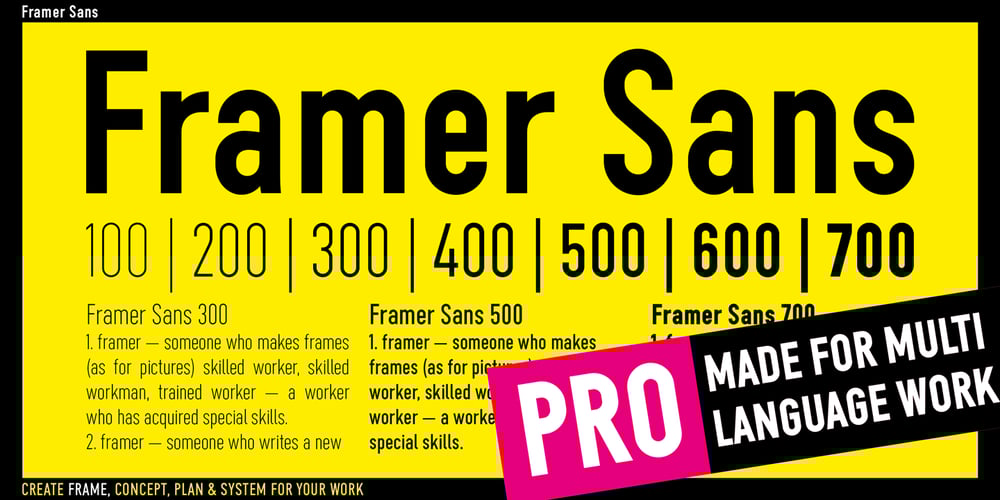
Framer Sans Font Family was designed by published by June 23. Framer Sans contains 7 styles and family package options. Framer Sans is sans-serif condensed type-family, created by June 23 Foundry. It is a geometric, lightly robust, simple and clean font, with a low contrast width. Framer Sans perfectly conforms to the ever-increasing demand for a diverse set of weights and additional support for non-Latin languages. The type system consists of 7 weights that for the clarity and users convenience is labelled with numbers from 100 to 700 (100 for “Thin”, 200 – “Ultra-Light”, and so on till 700 for “Bold”). It supports full Latin (European) character set, as well as Turkish, Vietnamese, Greek (basic) and Cyrillic languages. Framer Sans includes alternate characters, ligatures, symbols and 253 country codes that perfectly expand the design’s capabilities. Numerals contain six figure sets and Roman numbers. The variety of choices is expanded with additional stylistic sets for lowercases “a” and “g”, as well as 3 stylistic sets for Latin uppercases with crossbars and letter “Q”.